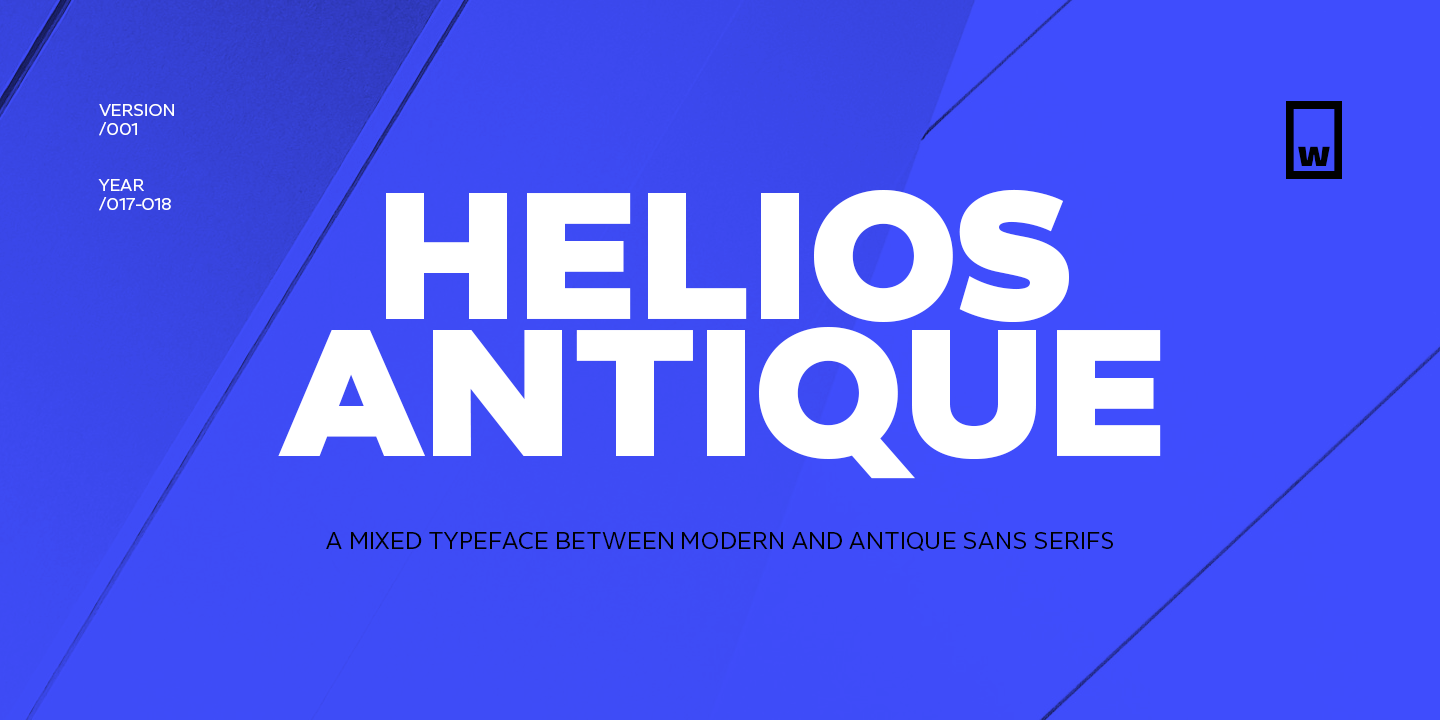
The Helios Antique Font is exceptionally versatile and shines in a wide array of applications where clarity, a contemporary aesthetic, and a subtle impact are paramount. Its rational structure, often slightly wider than many classic sans-serifs, gives it a higher visual presence. This makes it an ideal choice for corporate branding, modern website headers, and compelling advertising campaigns. It's perfect for editorial design, app interfaces, and professional presentations, ensuring excellent readability and a polished user experience. Furthermore, consider Helios Antique Font for large-scale signage, architectural layouts, and any design aiming to convey a sense of modern sophistication and quiet authority.
What makes the Helios Antique Font so exciting is its harmonious balance of neutrality and distinctiveness. It manages to be both clean and contemporary while possessing a subtle character that prevents it from feeling generic. This characteristic allows it to communicate a sense of professionalism, innovation, and timeless appeal, making your message resonate effectively with a broad audience. It’s a font that doesn't just display text; it subtly enhances the visual narrative, adding a layer of contemporary charm and sophisticated appeal to any creative endeavor. Its versatility ensures your work will appear polished, trustworthy, and highly effective across diverse platforms.
The Helios Antique Font family typically boasts a comprehensive range of weights and styles to maximize its utility and allow for robust typographic hierarchies. You'll often find an extensive selection, ranging from Thin and Ultra Light to Light, Regular, Medium, SemiBold, and Bold, usually accompanied by corresponding italic styles. The complete family, as designed by Felipe Sanzana and Diego Aravena for W Type Foundry, can include up to 36 styles, featuring powerful OpenType features like alternate characters, ligatures, and extended language support. This broad spectrum ensures designers can maintain a consistent visual theme while adapting the font to diverse design needs and contexts, from delicate headlines to strong emphasis.